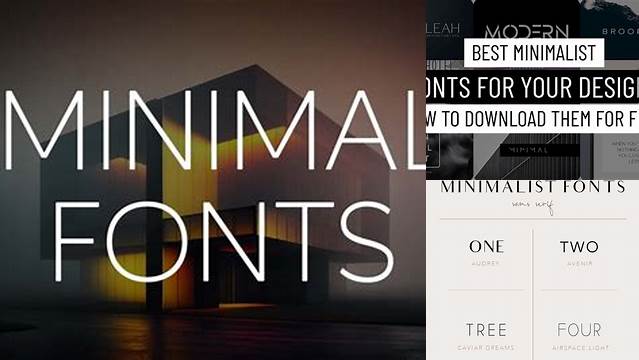
Minimalist Fonts: Free Downloads For Your Designs
Hey guys! Are you looking to give your designs a sleek, clean, and modern look? Then you've come to the right place! In this article, we're diving deep into the world of minimalist fonts and how you can snag some fantastic ones for free. Whether you're a seasoned designer or just starting out, having a collection of minimalist fonts can be a game-changer. Let's get started!
1. What is a Minimalist Font?
So, what exactly makes a font minimalist? Well, in essence, minimalist fonts are all about simplicity and clarity. They strip away unnecessary ornamentation and focus on clean lines, geometric shapes, and a sense of openness. Think of fonts that exude a modern, uncluttered aesthetic. These fonts often feature a consistent stroke width, minimal serifs (or no serifs at all), and a focus on legibility. They're perfect for projects where you want the text to be readable and blend seamlessly into the overall design. You'll find that minimalist fonts often work wonders in logos, websites, brochures, and even presentations. The beauty of minimalist fonts lies in their versatility; they can be used in a variety of contexts and still maintain a sense of sophistication and understated elegance. With minimalist fonts, the focus is on the message, not the embellishment, ensuring your content takes center stage. For example, consider fonts like Helvetica, Arial, or Montserrat – these are classics in the world of minimalist fonts for their simplicity and readability. When you choose a minimalist font, you're choosing a typeface that communicates effectively without shouting, making it a staple in any designer's toolkit.
2. Why Use Minimalist Fonts in Your Designs?
Okay, so why should you even bother using minimalist fonts? Great question! There are tons of reasons why minimalist fonts are a fantastic choice for your design projects. First off, they're incredibly versatile. Whether you're designing a sleek website, a professional business card, or an eye-catching poster, minimalist fonts can fit right in. Their clean lines and simple forms make them suitable for a wide range of applications. Another huge advantage is their legibility. Minimalist fonts are designed to be easily readable, which is crucial for getting your message across effectively. Think about it: if your text is hard to read, people are just going to skip over it. Using a minimalist font ensures that your audience can focus on the content, not the font itself. Plus, minimalist fonts have a timeless quality. They don't follow trends that come and go, so your designs will look fresh and modern for years to come. In a world where design styles are constantly evolving, minimalist fonts offer a sense of stability and sophistication. Choosing a minimalist font can also convey a sense of professionalism and elegance. They're perfect for brands that want to project a clean, modern image. Whether it's for a corporate website or a marketing campaign, minimalist fonts can help you create a polished and professional look. In summary, minimalist fonts are a powerful tool in any designer's arsenal, offering versatility, legibility, and a timeless aesthetic that can elevate your designs to the next level.
7. Understanding Font Licensing for Free Downloads
Okay, guys, this is super important, so listen up! When you're downloading free minimalist fonts, or any fonts for that matter, understanding font licensing is absolutely crucial. Ignoring this can lead to some serious headaches down the road, including legal issues and fines. Basically, font licensing is the legal agreement that outlines how you can use a particular font. It specifies things like whether you can use the font for commercial projects, whether you can embed it in a website or app, and whether you can modify or redistribute it. Different fonts come with different licenses, so it's not a one-size-fits-all situation. One of the most common types of licenses you'll encounter is the SIL Open Font License (OFL). This is a very permissive license that allows you to use the font for just about anything, including commercial projects, and even modify and redistribute it. Many fonts on Google Fonts are licensed under the OFL, which is why it's such a great resource. Other licenses may be more restrictive. For example, some fonts are free for personal use only, meaning you can't use them in projects that you're selling or using for business purposes. Some licenses may also restrict embedding fonts in websites or apps, or modifying the font files. The key takeaway here is to always, always check the license before using a font. Most font websites will provide clear information about the license, either on the font's download page or in a separate license file that comes with the font. If you're not sure about something, it's always best to err on the side of caution and contact the font designer or distributor for clarification. Ignoring font licensing is like driving without a license – it might seem okay at first, but it can lead to serious problems if you get caught. So, take the time to understand the terms of use before incorporating any free minimalist font into your designs.
8. Minimalist Font Styles: Sans-Serif vs. Serif
When we talk about minimalist fonts, we often categorize them into two main styles: sans-serif and serif. Understanding the difference between these styles is key to choosing the right font for your project. Sans-serif fonts are those that don't have the small decorative strokes, or “serifs,” at the ends of the letters. Think of fonts like Helvetica, Arial, or Roboto. They have a clean, modern, and geometric look, which makes them a popular choice for minimalist designs. Sans-serif fonts are generally considered to be more legible on screens, so they're often used for body text on websites and in digital applications. They also work well for headlines and logos where a clean and contemporary feel is desired. On the other hand, serif fonts do have those little strokes at the ends of the letters. Times New Roman is a classic example of a serif font. Serif fonts tend to have a more traditional and formal appearance, which can make them a good choice for print materials like books and magazines. They can also add a touch of elegance and sophistication to designs. In the world of minimalist fonts, serif fonts can be used sparingly to create contrast and visual interest. For example, you might pair a sans-serif font for headlines with a serif font for body text. This can create a balanced and harmonious look that's both modern and classic. Ultimately, the choice between sans-serif and serif depends on the specific needs of your project. Consider the overall tone and message you want to convey, as well as the context in which the font will be used. Experiment with different combinations to see what works best for you. There's no right or wrong answer, but understanding the characteristics of each style will help you make informed decisions.
9. Best Minimalist Sans-Serif Fonts for Web Design
If you're designing a website and aiming for a minimalist aesthetic, sans-serif fonts are often your best bet. Their clean lines and excellent legibility make them ideal for on-screen reading. But with so many sans-serif fonts out there, how do you choose the right one? Let's take a look at some of the best minimalist sans-serif fonts for web design. First up, we have Roboto. This is a hugely popular font from Google Fonts, and for good reason. It's incredibly versatile, working well for both headlines and body text. Roboto has a modern and slightly geometric feel, but it's still very readable and approachable. Next, there's Open Sans. Another Google Fonts staple, Open Sans is known for its clean and friendly appearance. It's a great choice for websites that want to convey a sense of openness and transparency. Lato is another excellent option. This sans-serif font has a warm and inviting quality, making it perfect for websites that want to create a welcoming atmosphere. Lato is also very legible, even at small sizes. If you're looking for something a bit more geometric, Montserrat is worth considering. This font has a strong, modern look that's perfect for headlines and logos. It also works well for shorter blocks of text. Another popular choice is Poppins. This font has a slightly rounded appearance, which gives it a friendly and approachable feel. Poppins is a great option for websites that want to strike a balance between modern and playful. When choosing a minimalist sans-serif font for your website, consider factors like legibility, versatility, and overall tone. Think about how the font will look in different contexts, such as headlines, body text, and navigation menus. Experiment with different pairings to see what works best for your design. With the right font, you can create a website that's both visually appealing and highly functional.
15. Free Minimalist Fonts for Commercial Use: What to Look For
Finding free minimalist fonts is great, but finding free minimalist fonts for commercial use is even better! If you're planning to use fonts in projects that you'll be selling or using for business purposes, it's crucial to choose fonts with a commercial license. This will protect you from potential legal issues down the road. So, what should you look for when searching for free minimalist fonts for commercial use? First and foremost, check the font's license. This is typically found on the font's download page or in a separate license file that comes with the font. Look for terms like